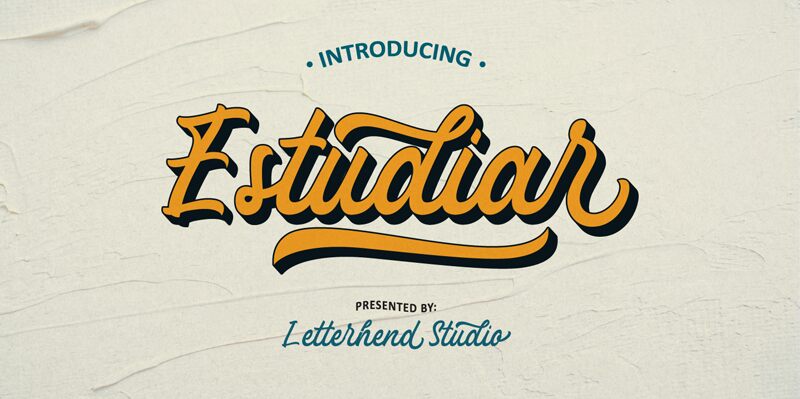
Estudiar Script, crafted with precision by Letterhend Studio, brings a touch of the past into modern creative endeavors. This retro brush font exudes charm and personality, making it an ideal choice for a myriad of projects where a handwritten aesthetic is desired. The natural, fluid strokes of Estudiar Script convey warmth and authenticity, perfect for headlines that demand attention, logotypes that resonate with character, or branding that aims to stand out with a nostalgic flair.
Its versatility extends to invitations, apparel designs, packaging, and advertising campaigns that seek a blend of the vintage and contemporary. With its comprehensive range of uppercase and lowercase letters, punctuations, symbols & numerals as well as stylistic alternates and ligatures, Estudiar Script offers designers endless creative possibilities. Its support for multilingual characters and PUA encoding ensures seamless integration into various platforms. Embrace the unique appeal of Estudiar Script for your next project-the quintessential retro brush font that speaks to both yesteryear's charm and today's design standards.